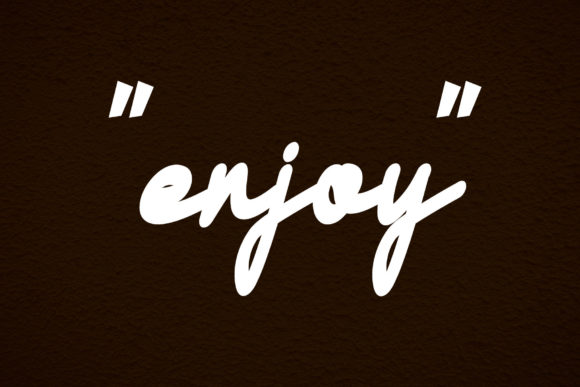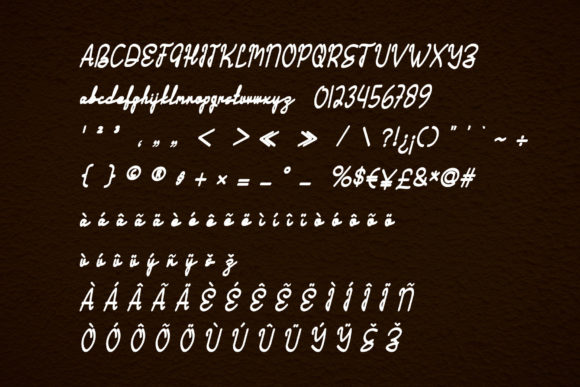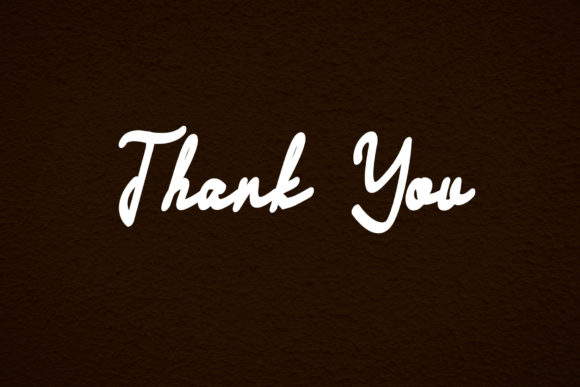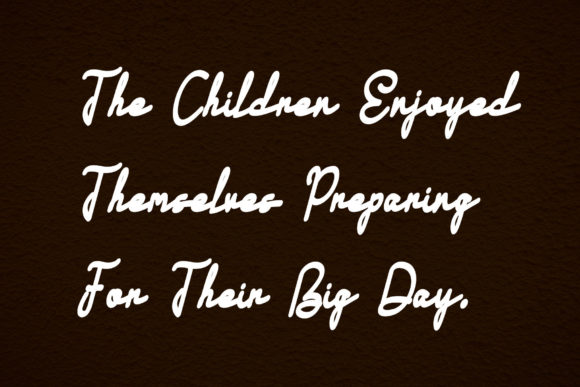
Big Day Font
About Big Day Font
Big Day is a charming and dainty handwritten font that brings a touch of sweetness and delicacy to your designs. With its cute and playful style, this font is perfect for a variety of creative projects.
The unique feature of Big Day is its sweet and delicate swashes, which add a whimsical and decorative touch to the letters. These swashes enhance the overall look and make the font even more visually appealing. Whether you’re designing letterheads, titles, or stationery, Big Day will add a delightful and crafty element to your creations.
The versatility of Big Day allows it to be used in various design applications. It can be applied to both print and digital materials, bringing a sense of charm and creativity to your projects. From greeting cards and invitations to social media graphics and branding, this font will make your designs stand out and create a joyful and playful atmosphere.
With its cute and dainty appearance, Big Day is sure to capture the hearts of viewers and leave a lasting impression. Its handwritten style adds a personal and authentic touch to your designs, making them feel warm and inviting.
In summary, Big Day is a cute and dainty handwritten font with sweet and delicate swashes. It is perfect for crafty ideas, such as letterheads, titles, and stationery. Let Big Day bring a playful and whimsical touch to your designs and make every day feel like a celebration.